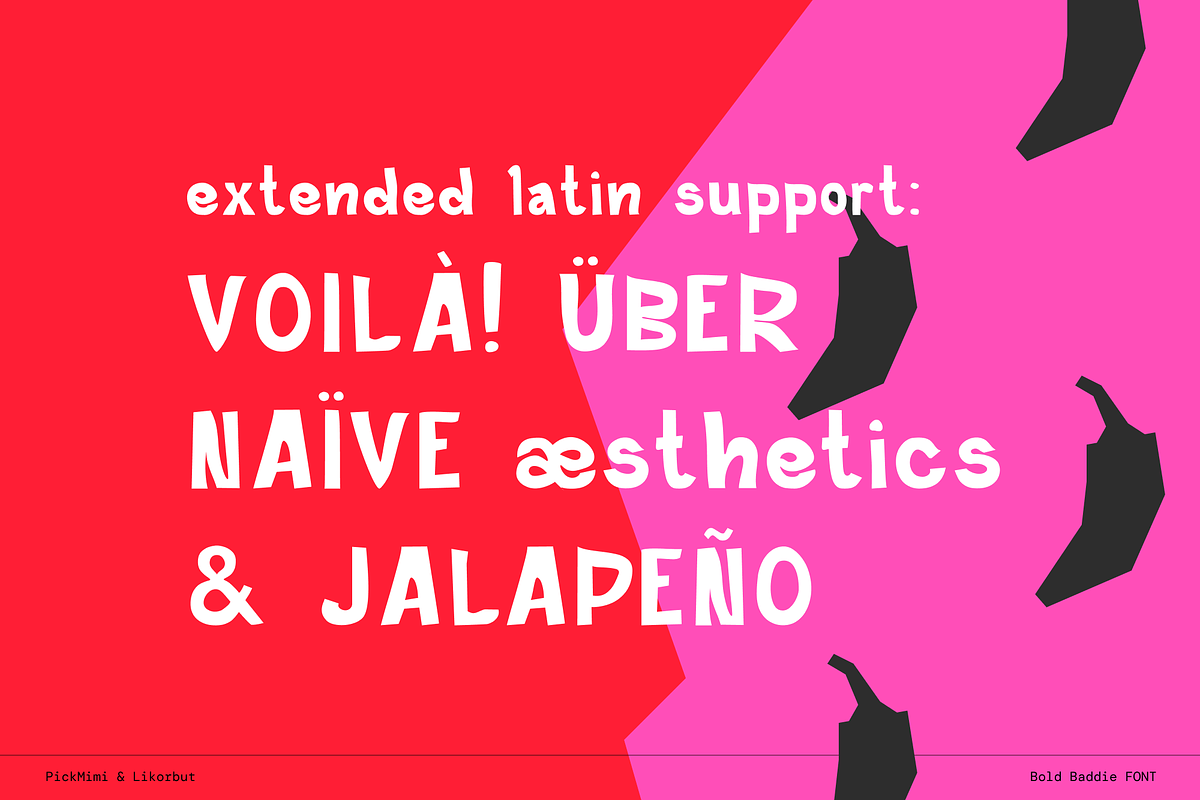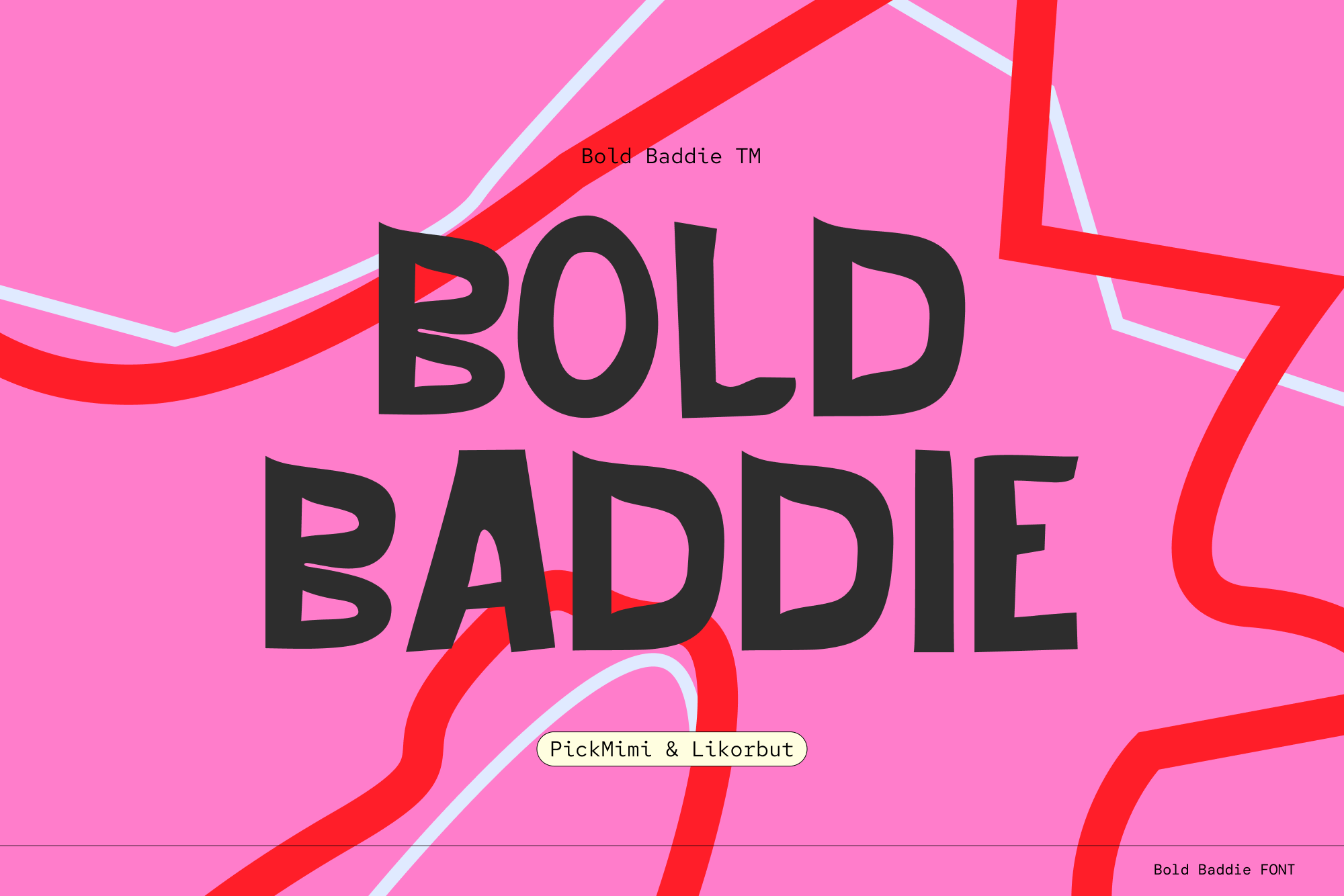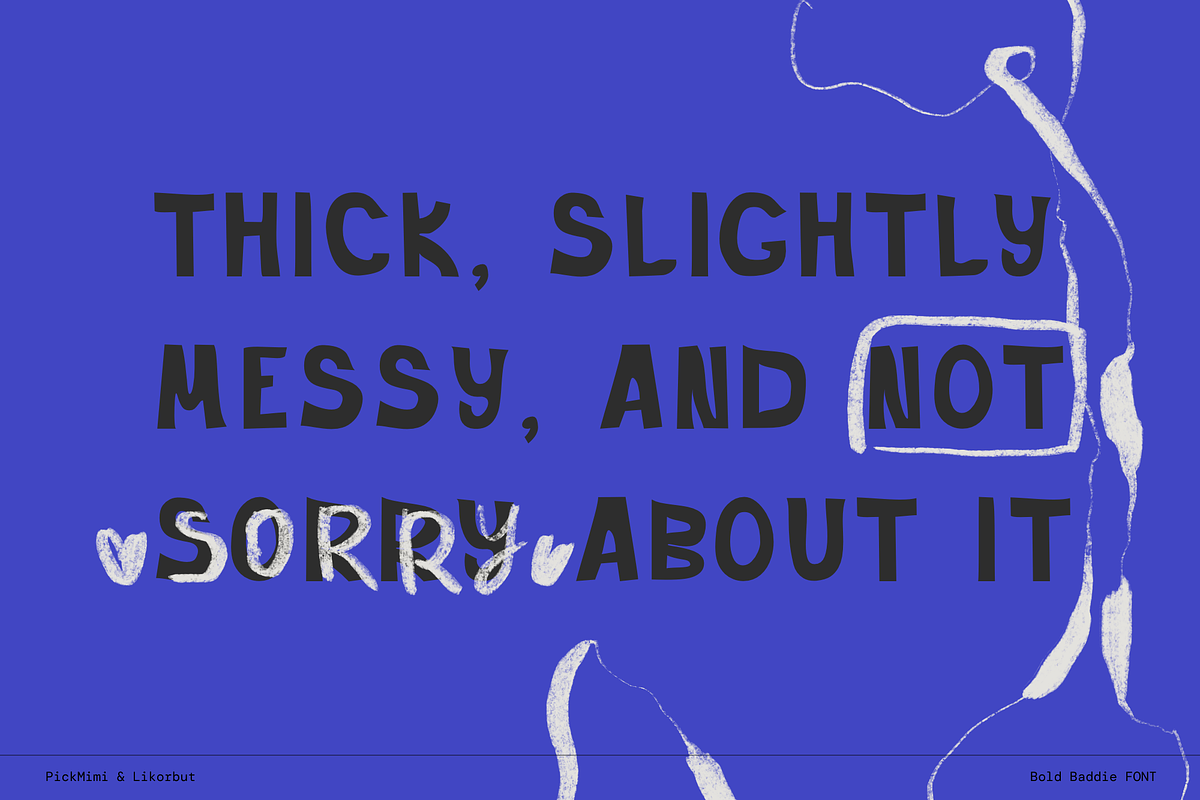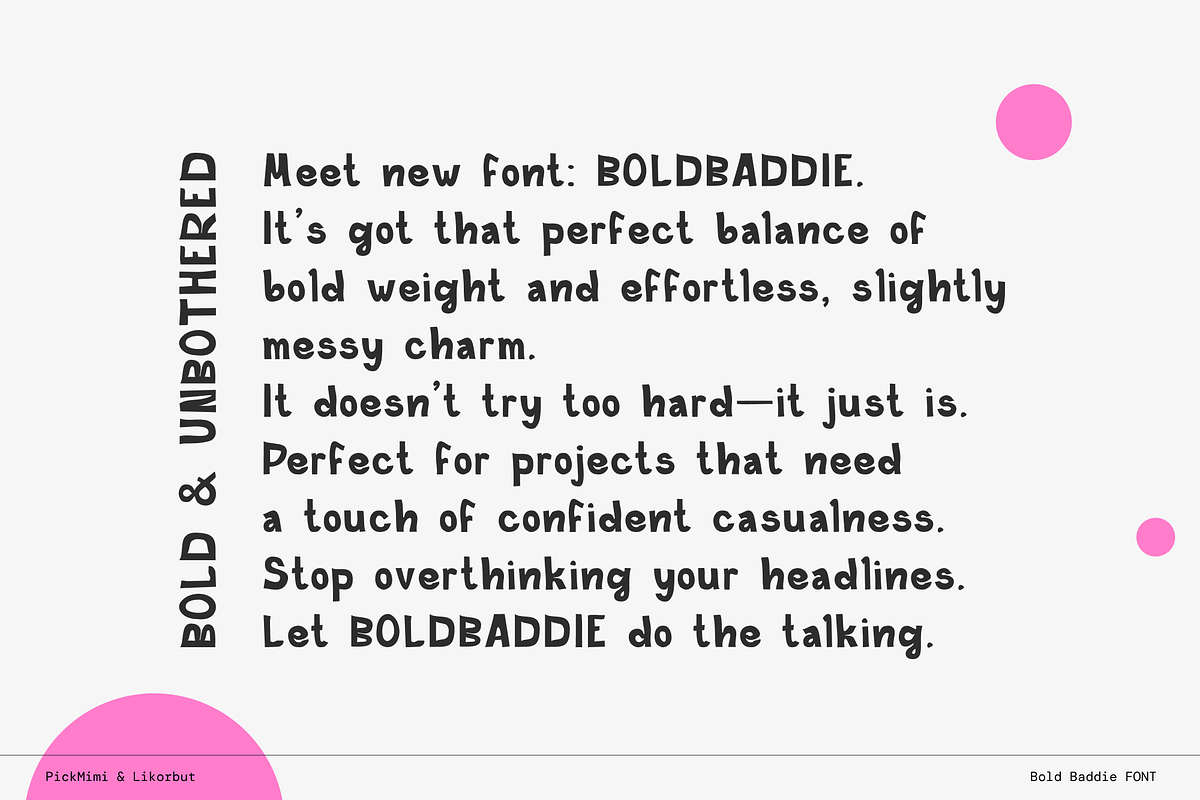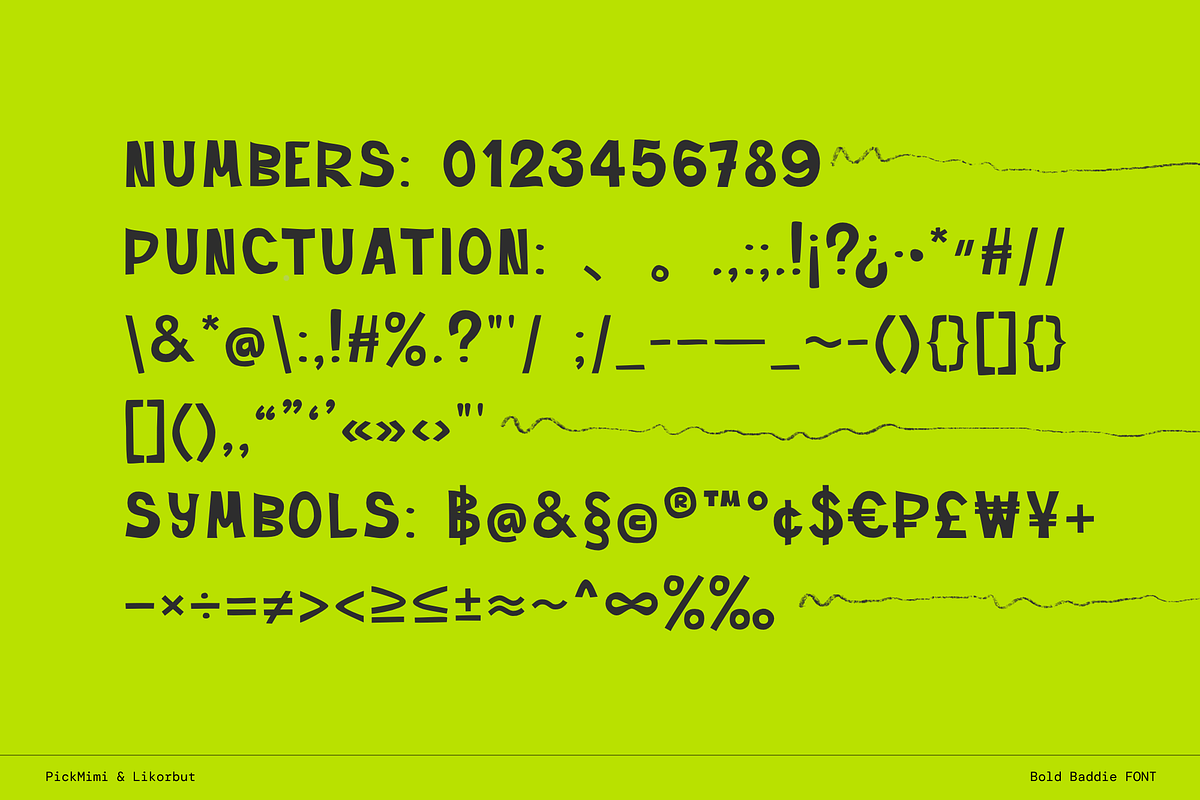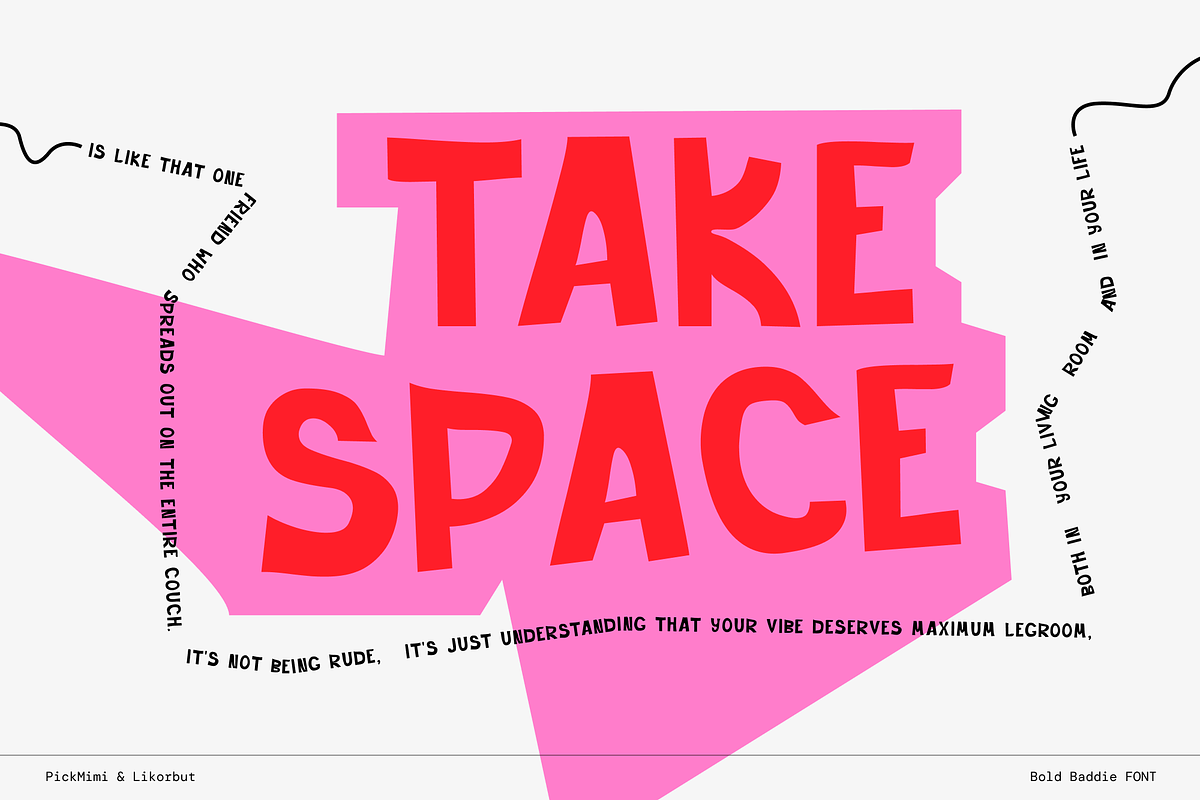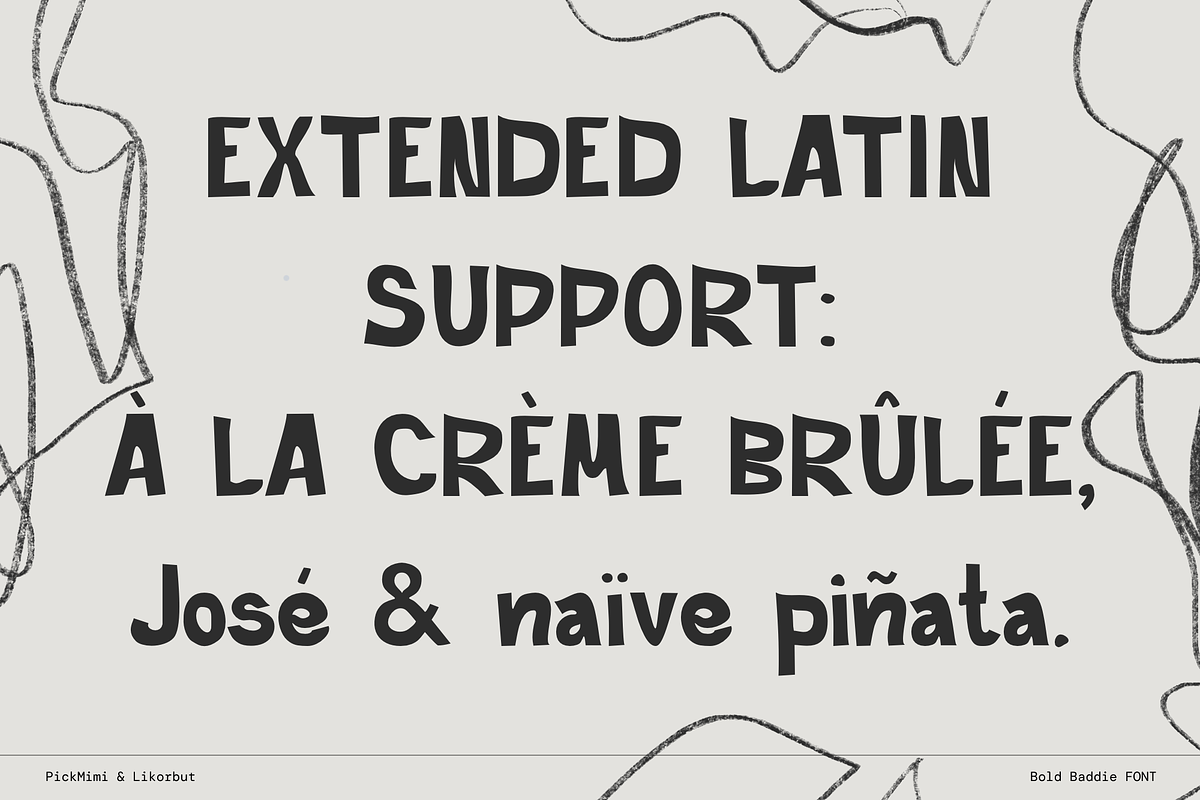
Bold Baddie Display Font
Bold Baddie is a bold display font that masterfully blends power with a touch of rebellion. It features a slightly messy and imperfect style, giving your designs an instant dose of gritty authenticity and raw energy. Crafted for large headlines and bold statements, this font ensures your message is not just seen, but felt.
Font includes Uppercase & Lowercase Letters / Numbers, Symbols & Punctuation
Languages Basic Latin, Western European, Euro, Central European, South Eastern European, South American